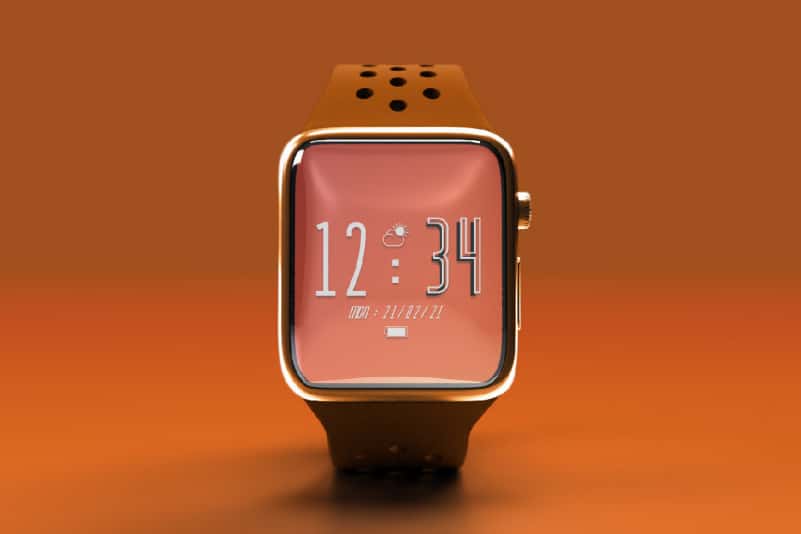
The Orange Display Font is a sans serif display font with modern creative style. The font is made for any modern projects including product packaging, branding, headlines, billboard etc. The font actually inspired from crypto currency and tech hype industry. It has a unique modern style that give exclusiveness effect to the design. It will also works for games, apps, movie and any related things.
The Orange Display Font has three styles : Reguler, Italic and Outline. It includes full set of Uppercase and Lowercase Basic Characters, Numerals and Punctuation, also it contains ligatures to make it awesome. You can also combine two or more styles on the text like we did on the cover, so you will great even more unique and special font. The font is perfect for many projects, headlines, logos, poster, tittle, products, etc